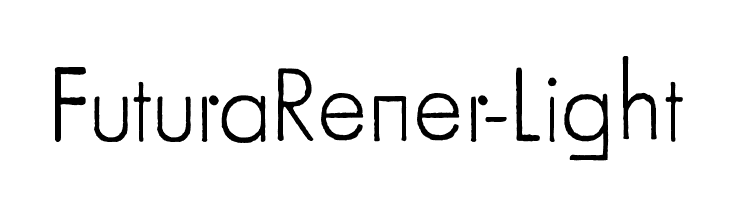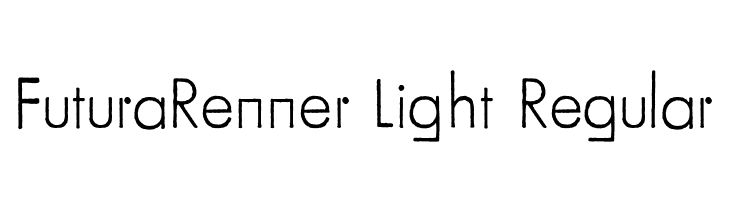
• FuturaRener-Light 字体
• FuturaRenner 字体
A geometric sans-serif font with clean lines and a modern aesthetic.
• FuturaRenner Light 字体
A clean, geometric font with a modern and balanced design.
• FuturaRenner Light Regular 字体
A clean, geometric font with a modern and minimalistic style.
• FuturaRenner Regular 字体
A modern, geometric font with clean lines and a minimalist style.